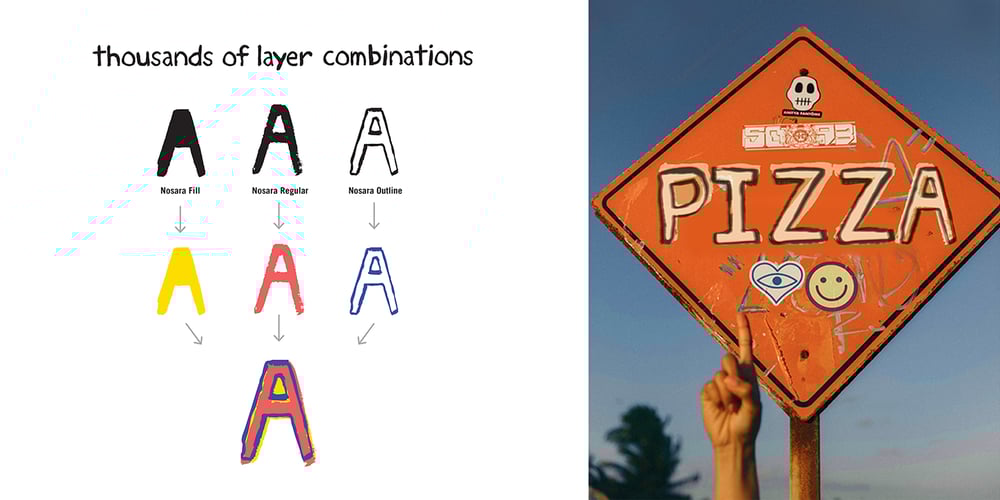
Nosara Font Family was designed by Thomas OQuinn and published by Never Better. Nosara contains 6 styles and family package options. Inspired by a trip to Costa Rica and named after its famous beach town, Nosara is a layered vector font that’s perfect for projects that require a realistic, hand-painted desert-island look. It comes in three styles: Regular, Outline, and Fill. The styles can be layered to create authentic-looking hand-painted letters and icons—in vector! You can create outlines from this font in order to customize to your heart’s desire. Millions of bespoke combinations are possible. This typeface was made by hand, meaning each letter was painted with real paint and digitized, not created on an iPad, which is why this font looks great and has a warm natural quality even at large sizes. Nosara is perfect for packaging, parties, signage, and even looks great in long-form text! Nosara Xtra is a set of pictograms, also in 3 styles that can be layered for the same effect, evoking the imagery and happy vibes of a sunny tropical vacation.